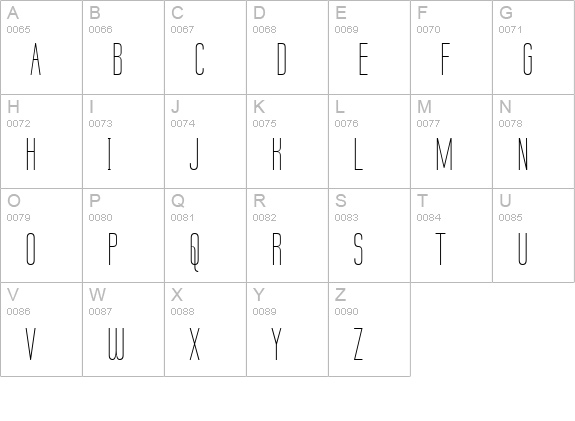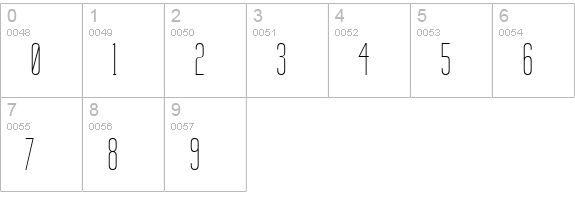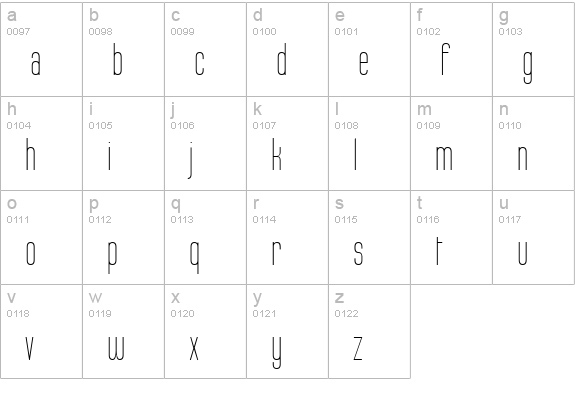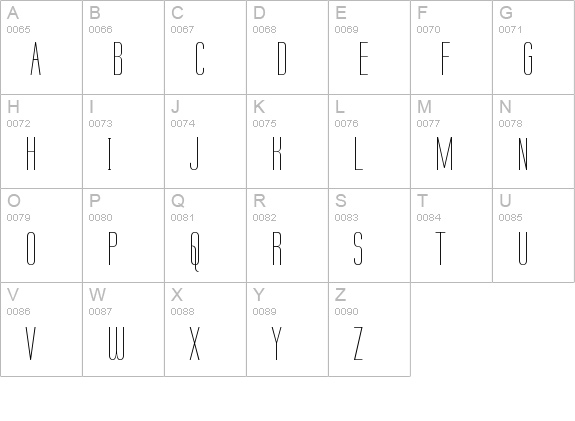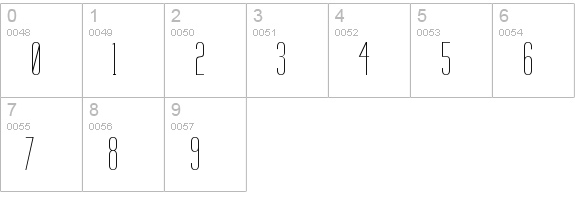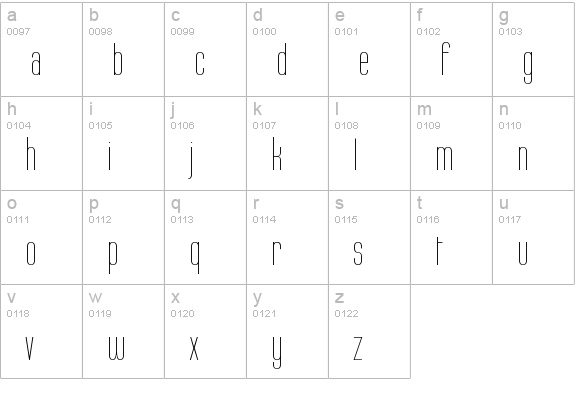
Labtop Thin is a delicate, low-contrast variant in the Labtop typeface family \xE2\x80\x94 well suited to fashion editorial, minimal branding, and high-contrast display.
Labtop Thin font is a sleek and modern typeface that exudes sophistication and elegance. With its clean lines and minimalist design, this font is perfect for creating a polished and professional look in any project. The thin weight of the font adds a touch of delicacy and refinement, making it ideal for use in headings, logos, and other design elements where a light and airy feel is desired. Best of all, Labtop Thin font is available for free download at FontsMarket.com. Whether you're working on a personal project or a professional assignment, this font is a versatile choice that will elevate your designs to the next level. Don't miss out on the opportunity to enhance your work with the timeless beauty of Labtop Thin font - download it for free today!